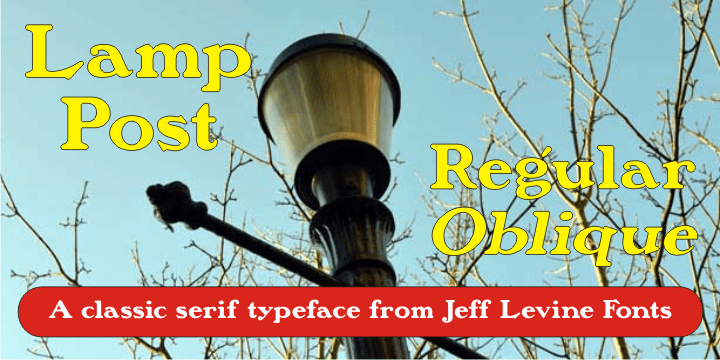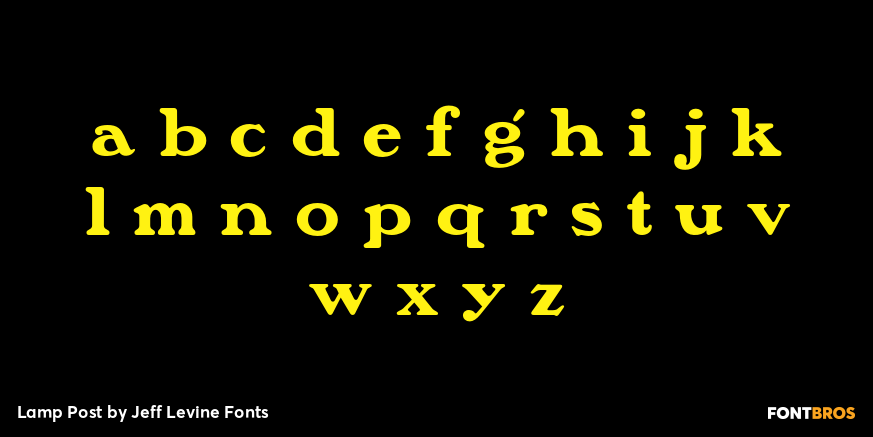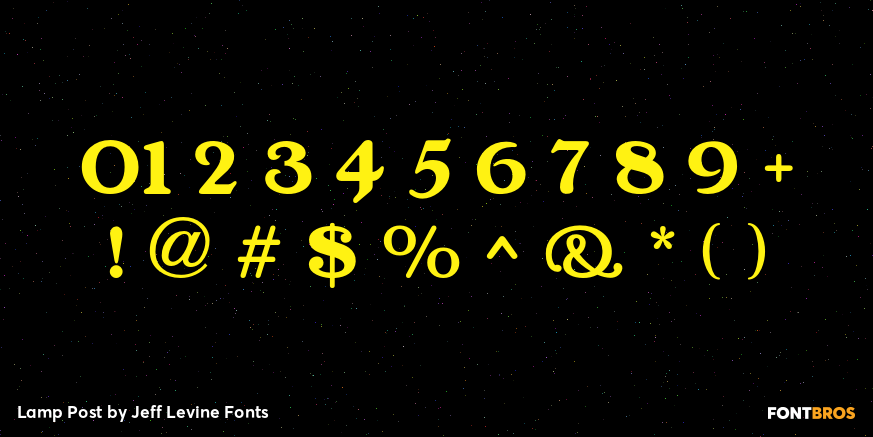
Lamp Post
Lamp Post JNL is a digital interpretation of a design popular in the early 1900s called Post Old Style; no doubt inspired by a certain Saturday periodical with a similar name.
There is an intrinsic charm to lettering that evokes a hand-made look, and this design is a perfect example of the genre. Available in both regular and oblique versions, it will add the nostalgia of simpler times to any print or web project.